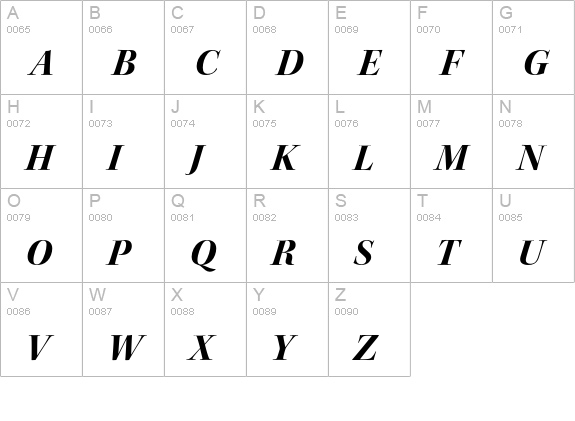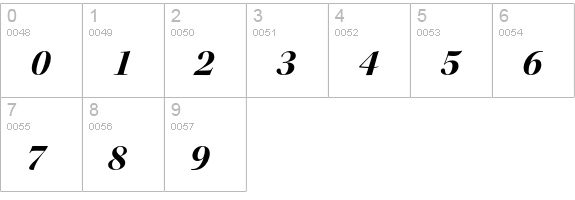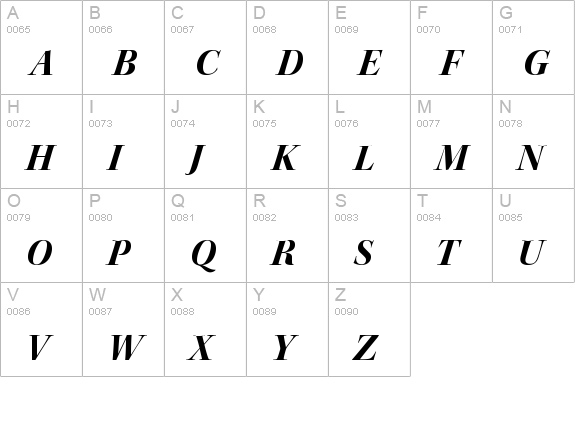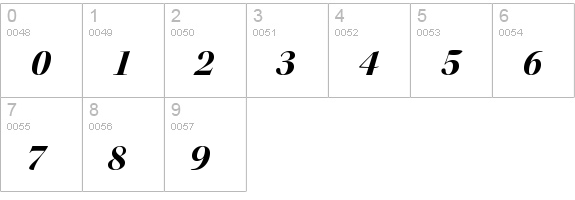
Kepler Std Bold Italic Display Font Details
Kepler Std Bold Italic Display is a strong, high-contrast, italic variant in the Kepler typeface family \xE2\x80\x94 well suited to headlines, attention-grabbing titles, and strong calls-to-action.
The Kepler Std Bold Italic Display font is a stunning and versatile typeface that exudes elegance and sophistication. With its bold and italicized design, this font is perfect for creating eye-catching headlines, titles, and logos that demand attention. Featuring a unique blend of curves and angular shapes, the Kepler Std Bold Italic Display font adds a touch of modernity and style to any design project. Its strong and confident letterforms make it ideal for conveying a sense of authority and professionalism. This font is freely available to download at FontsMarket.com, making it easily accessible to designers and creatives alike. Whether you're working on a personal project or a commercial venture, the Kepler Std Bold Italic Display font is sure to elevate your designs to new heights. Its versatility extends beyond just digital media, as the font also works well in print materials such as brochures, magazines, and packaging. Its legibility ensures that your message will be conveyed clearly, no matter the size or medium. With its wide range of characters, including uppercase and lowercase letters, numbers, punctuation marks, and special symbols, the Kepler Std Bold Italic Display font offers endless possibilities for creative expression. Its well-balanced proportions and consistent spacing make it a joy to work with, ensuring that your designs will always look polished and professional. Whether you're a seasoned designer or just starting out, the Kepler Std Bold Italic Display font is a valuable addition to your typographic toolkit. Its bold and italicized style, combined with its timeless elegance, make it a font that will stand the test of time. Download it for free at FontsMarket.com and unleash your creativity today.